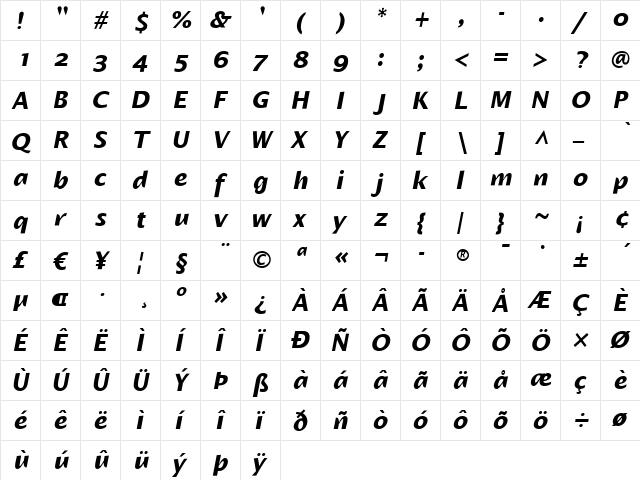
Alphabet2 Bold Italic
Design Context for Alphabet2 Typeface
Alphabet2 is a composed and adaptable typeface that performs quietly and consistently across a wide range of design contexts. The dynamic lean of this cut emphasises speed and emphasis in any layout. The heavy weight commands attention and anchors typographic hierarchies.
Pro Tip: Try Alphabet2 for annotation and caption copy alongside an upright companion — the contrast in angle creates a dynamic but ordered typographic system.